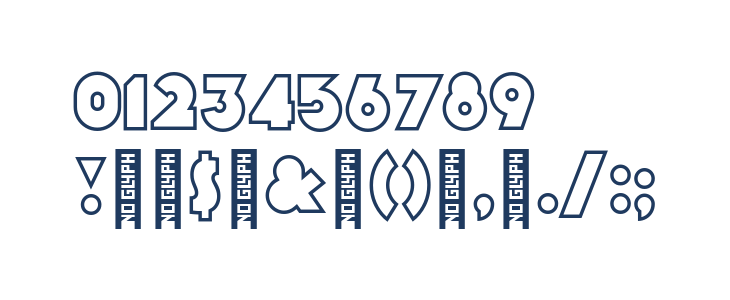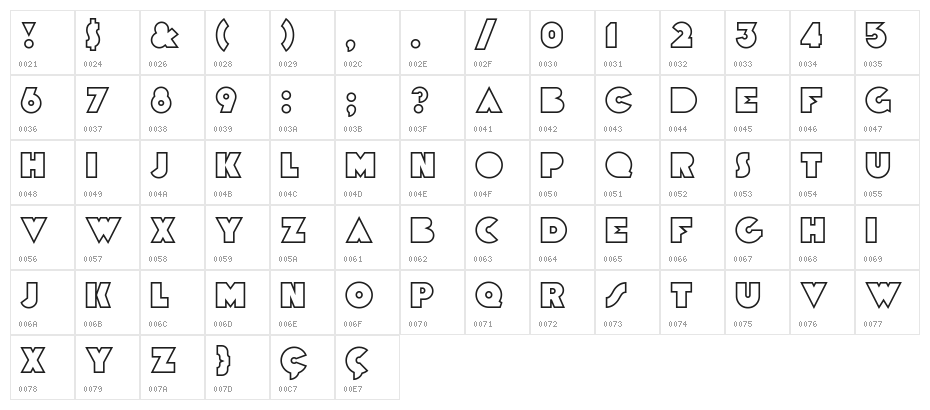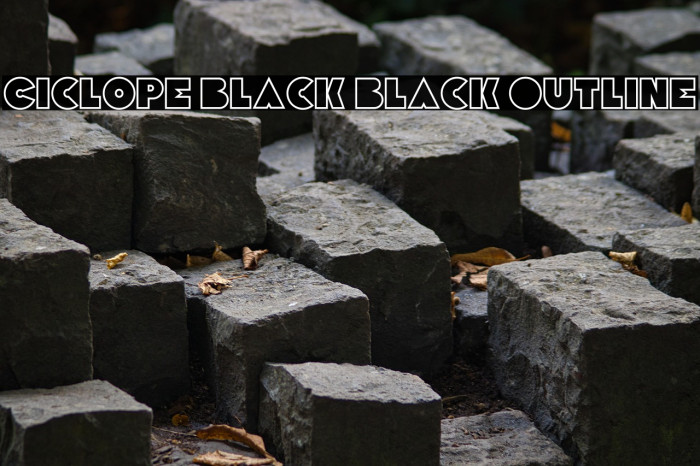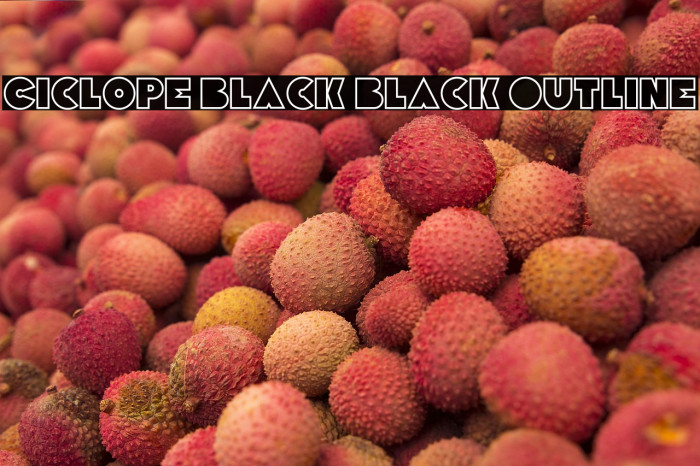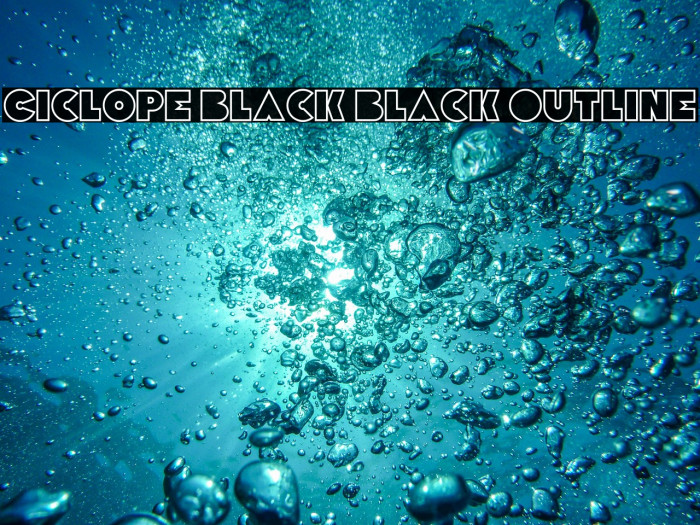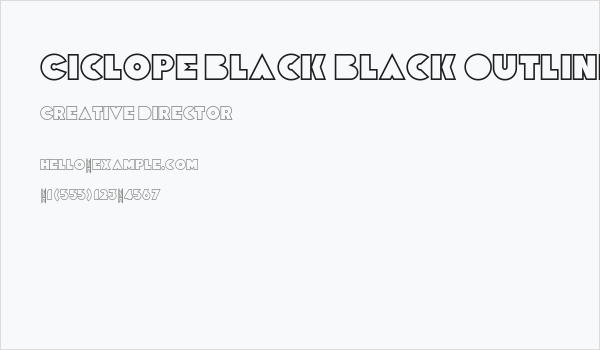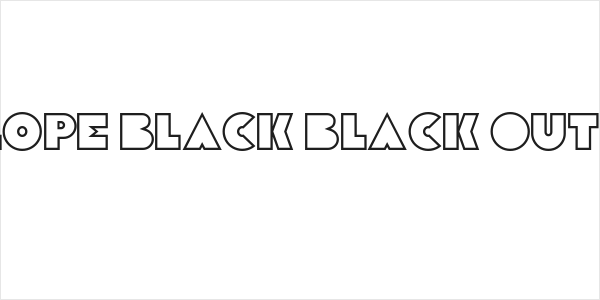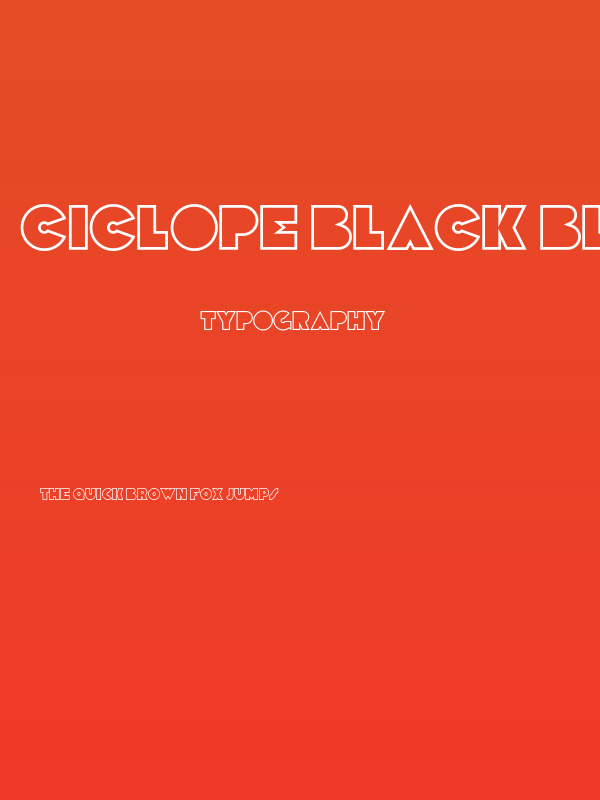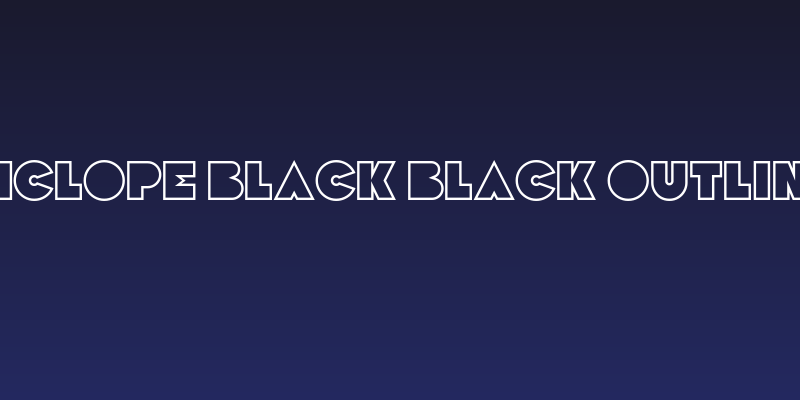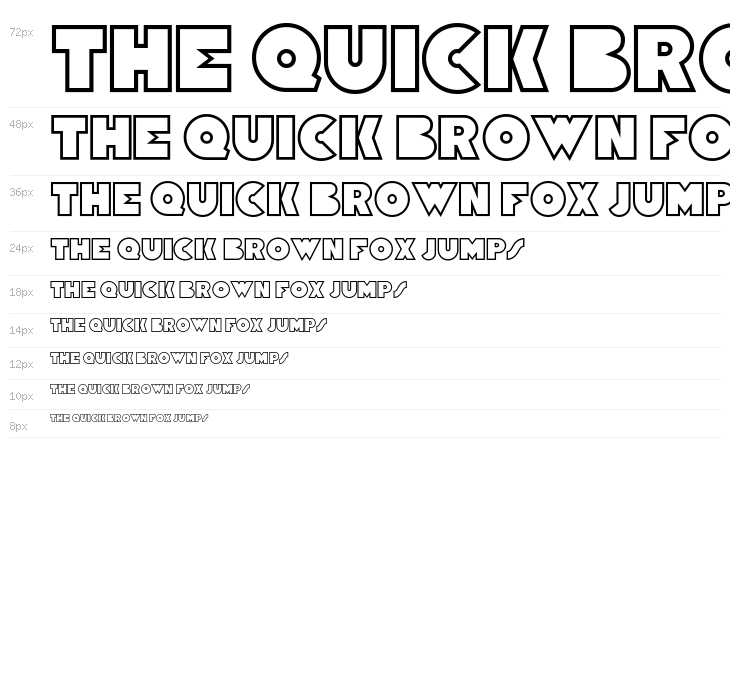
Ciclope Black Black Outline Font
Ciclope Black Black Outline Description
This font features a bold, geometric design with a distinct outline style. Each character is crafted with sharp angles and clean lines, creating a striking visual impact. The uppercase letters are particularly prominent, with a uniform height and width that contribute to a cohesive appearance. The numbers and special characters maintain the same bold outline, ensuring consistency across all elements. This font's unique style makes it ideal for projects that require a modern and eye-catching aesthetic.